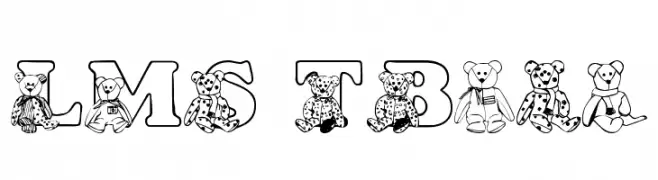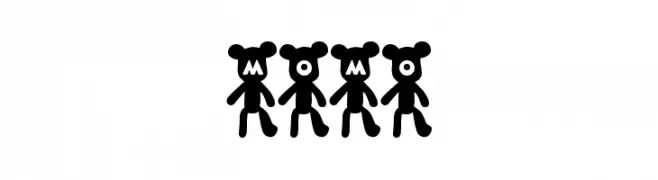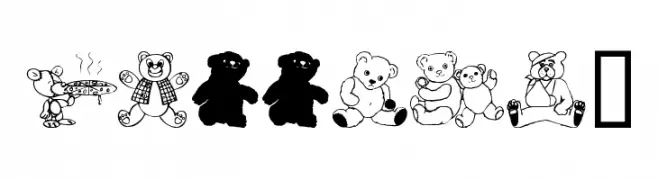
Holiday-themed teddy bear illustrations replace standard characters.
A decorative font with whimsical teddy bear illustrations for each character.
Illustrative font with hand-drawn teddy bear characters.
A playful, decorative font with a teddy bear fur pattern.
A whimsical font with teddy bear illustrations replacing letters.
The image contains teddy bear illustrations with letters, not a font.
Whimsical teddy bear illustrations form each character.
A whimsical font with letters inside teddy bear designs, perfect for playful projects.
A whimsical font with teddy bear illustrations integrated into each letter.